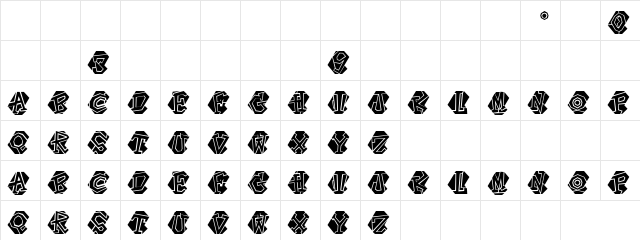
Disco Penta Regular
Design Context for Disco Penta Typeface
Disco Penta is a composed and adaptable typeface that performs quietly and consistently across a wide range of design contexts.